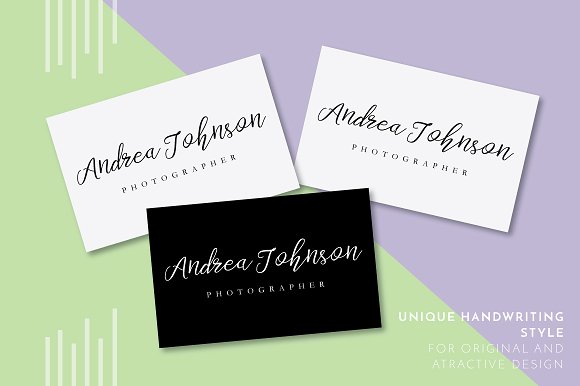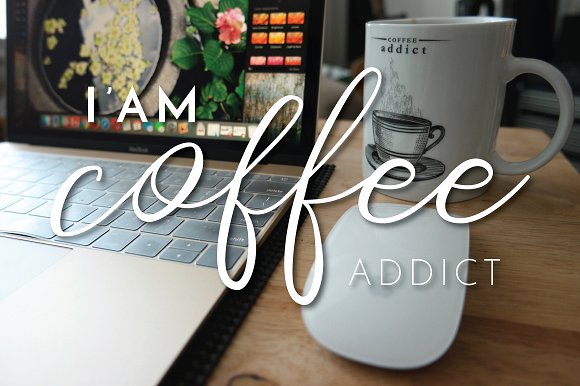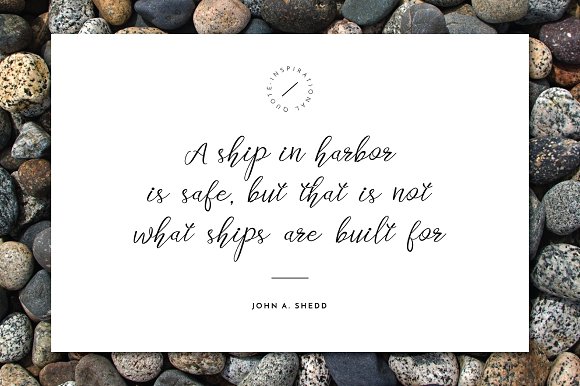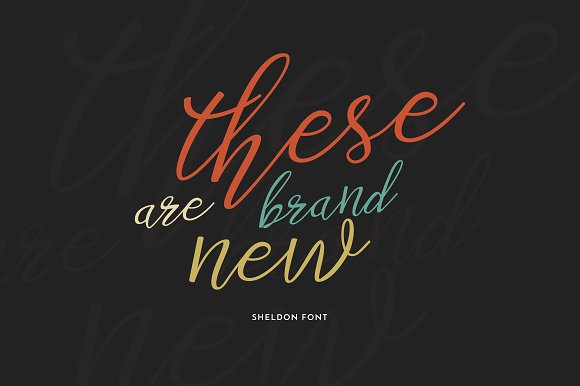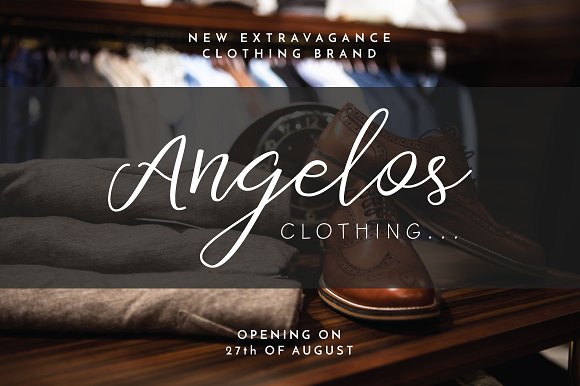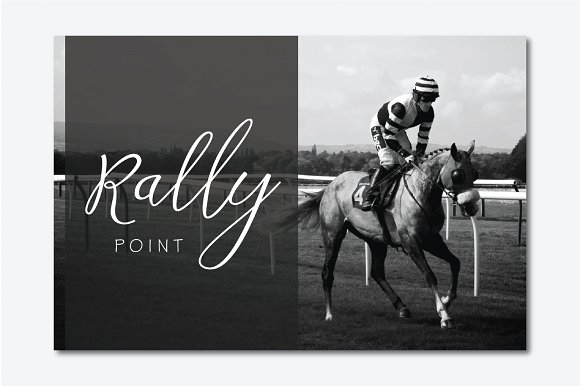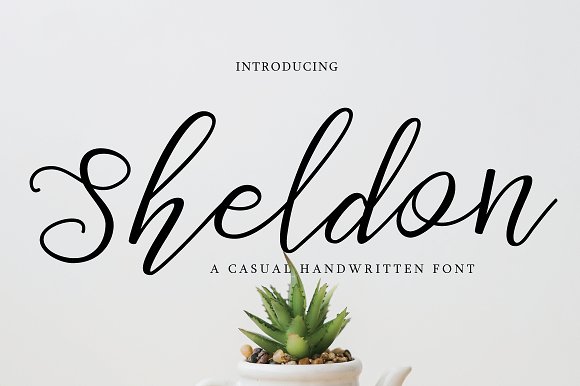
Sheldon Typeface
Sheldon is a casual script calligraphy typeface designed with love is guaranteed to give you in creating attractive hand-made typography within a second. ๐Ÿ˜‰ Use Sheldon to help you create custom hand-lettering with the look of tidy hand lettering and try also combining within it ligatures for perfect design.
Handwritten script which allows you to create different feels for different projects. Ligatures also available for some characters to create more natural look. Try switching between every style characters to get the best layout for your text.
Sheldon script is perfect for logos, websites, invitations, greeting cards, magazines, business cards, packaging and many more! Be a perfect professional in a minute and start creating modern designs.